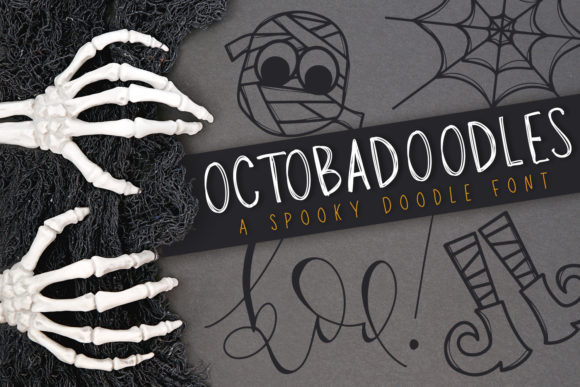
Welcome to the whimsical world of OctobaDoodles, a font family that embodies the spirit of Halloween like no other. Every stroke, every curve, and every glyph in this font is meticulously crafted to capture the essence of the spookiest night of the year.
Let your imagination run wild as you explore the depths of OctobaDoodles, a font that speaks in the language of ghouls, ghosts, and goblins. From the playful pumpkins to the mischievous bats, each character holds a secret, waiting to be discovered by those who dare to venture into the realm of the unknown.
With OctobaDoodles, you'll have the power to transform any design into a haunting masterpiece. Whether you're creating invitations for a Halloween party, designing posters for a haunted house, or simply adding a touch of spookiness to your social media posts, OctobaDoodles is the perfect tool to bring your visions to life.
But it's not just about Halloween. OctobaDoodles is a versatile font that can add a touch of whimsy and charm to any project, no matter the occasion. Use it to create eye-catching logos, unique business cards, or playful greeting cards. Let OctobaDoodles be your creative companion, helping you express yourself in ways you never thought possible.
So, embrace the magic of OctobaDoodles, let your creativity flow, and indulge in a world where the ordinary becomes extraordinary. With this font, you'll be able to cast spells on your designs, leaving your audience spellbound and wanting more.